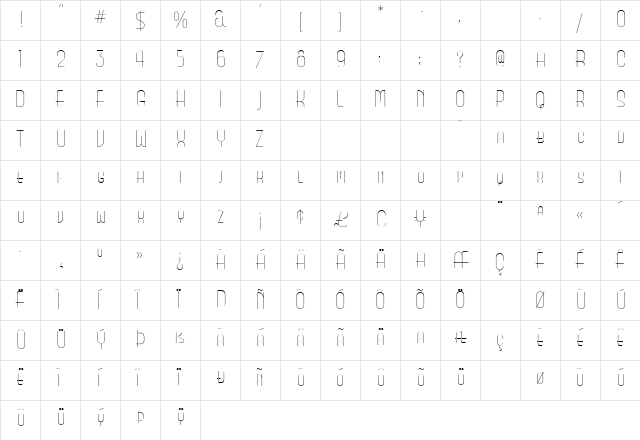
2 Inline DNA Regular
Design Context for 2 Inline DNA Typeface
2 Inline DNA brings ornamental detail and strong personality to headlines and identities, where visual impact matters more than quiet functionality.
Font Pairing: Pair with a clean neutral sans-serif for body copy to let 2 Inline DNA's character lead without overwhelming the composition.
Pro Tip: Use 2 Inline DNA exclusively at display sizes — it was designed to be seen, not read at length. Let a neutral companion handle body copy.